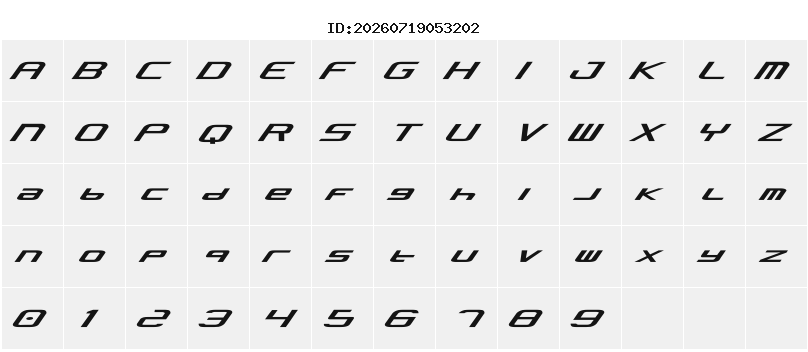
Concielian Alpha Preview
• Font Name: Concielian Alpha
• Full Font Name: Concielian Alpha
About Concielian Alpha.ttf
Concielian Alpha.ttf is a modern, elegant sans-serif font designed for ultimate readability and visual harmony. Perfect for branding, headlines, web design, and print materials.